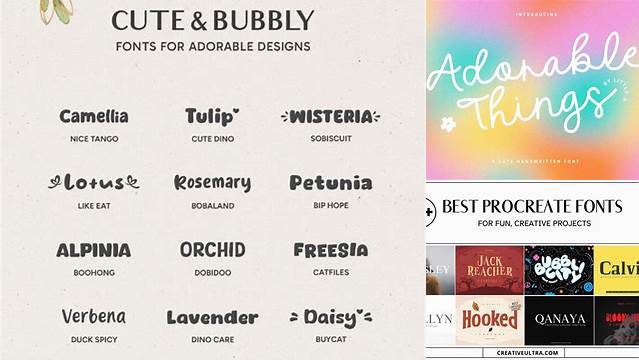
Hey guys! Are you ready to give your Procreate projects a serious dose of cuteness? Finding the perfect font can really make your artwork pop, and the best part is, you don't have to break the bank. Let's dive into a treasure trove of adorable free fonts for Procreate that will add that extra oomph to your designs. Trust me; your creations will thank you!
1. Bubble Letter Fonts for Procreate
Bubble letter fonts are all about fun and playfulness. These fonts feature rounded, soft edges that give a friendly and approachable vibe to your artwork. When you're working on a Procreate project that needs a touch of whimsy, bubble letter fonts are your go-to. Think birthday cards, children's illustrations, or even just adding some personality to your digital notes. They’re super versatile and can be used in a ton of different ways to make your project stand out. The great thing about bubble fonts is how readable they are, even when they’re stylized. This means you can use them for headlines, body text, and even smaller captions without sacrificing clarity. Plus, they come in a variety of weights and styles, so you can find the perfect one to match your artistic vision. When choosing a bubble letter font, consider the overall mood of your project. A thicker, bolder bubble font will make a bigger impact and is great for grabbing attention, while a thinner, more delicate bubble font can add a subtle touch of cuteness. Don't be afraid to experiment with different colors and effects to really make the font shine in your Procreate masterpiece. I personally love using bubble letter fonts for sticker designs; they just add that extra bit of charm that people adore!
2. Script Fonts for Procreate
Script fonts are the epitome of elegance and charm. Their flowing, handwritten style adds a personal touch to any Procreate project, making them perfect for invitations, quotes, and personalized artwork. These fonts mimic real handwriting, so they bring a sense of authenticity and warmth to your designs. The beauty of script fonts lies in their versatility. You can find them in various styles, from elegant calligraphy to more casual and playful scripts. This means you can choose a script font that perfectly matches the tone and style of your artwork. For example, a formal invitation might call for a sophisticated, flowing script, while a fun, quirky project could benefit from a more casual, whimsical script. When using script fonts in Procreate, it's important to consider readability. Some script fonts can be quite intricate, so make sure the text is easy to read, especially when used in smaller sizes. Experiment with different colors and effects to enhance the font's appearance and make it stand out. I often use script fonts to add inspirational quotes to my digital art. The handwritten style gives the quotes a personal and heartfelt touch, making them even more impactful. So, go ahead and explore the world of script fonts and add a touch of elegance to your Procreate creations!
3. Sans-Serif Fonts for Procreate
Sans-serif fonts are the workhorses of the typography world. They are clean, modern, and highly readable, making them an excellent choice for a wide range of Procreate projects. Unlike serif fonts, which have small decorative strokes at the ends of the letters, sans-serif fonts have a clean, straightforward design. This simplicity makes them incredibly versatile and suitable for both headlines and body text. The lack of serifs gives these fonts a contemporary look, making them perfect for digital designs. One of the main advantages of sans-serif fonts is their clarity. They are easy to read on screens, which is essential for Procreate projects that will be viewed on digital devices. This readability makes them ideal for user interfaces, website designs, and digital publications. When choosing a sans-serif font for your Procreate project, consider the overall style and tone you want to convey. A bold sans-serif font can make a strong statement, while a lighter sans-serif font can create a more subtle and refined look. Experiment with different weights and styles to find the perfect font that complements your artwork. I often use sans-serif fonts for labeling elements in my illustrations. Their clean design ensures that the labels are easy to read and don't distract from the overall artwork. So, whether you're creating a website mockup or adding text to your digital painting, sans-serif fonts are a reliable and versatile choice.
4. Serif Fonts for Procreate
Serif fonts are classic and timeless, bringing a touch of tradition and elegance to your Procreate projects. These fonts are characterized by the small decorative strokes, or serifs, at the ends of the letters. These serifs give the font a more formal and refined appearance, making them ideal for projects that require a touch of sophistication. The presence of serifs can also improve readability, especially in printed materials, by guiding the eye along the lines of text. When using serif fonts in Procreate, consider the overall aesthetic you want to achieve. A traditional serif font like Times New Roman or Garamond can add a sense of history and formality to your designs. On the other hand, a more modern serif font can bring a contemporary twist to your artwork. Serif fonts are particularly well-suited for projects that involve a lot of text, such as digital books, articles, or blog posts. The serifs help to create a visual rhythm that makes the text easier to read and more engaging. I often use serif fonts for the body text in my digital magazines. The classic look of serif fonts gives the magazine a professional and polished appearance. Just remember to choose a serif font that complements the overall style of your artwork and enhances the readability of your text.
5. Display Fonts for Procreate
Display fonts are designed to grab attention and make a statement. These fonts are often more stylized and decorative than other font types, making them perfect for headlines, logos, and other prominent design elements in your Procreate projects. Display fonts come in a wide variety of styles, from bold and impactful to elegant and whimsical. This diversity allows you to choose a display font that perfectly matches the tone and style of your artwork. The key to using display fonts effectively is to use them sparingly. Because they are so eye-catching, they can easily overwhelm a design if overused. Instead, focus on using them for key elements that you want to stand out. When choosing a display font for your Procreate project, consider the overall message you want to convey. A bold, geometric display font might be perfect for a modern, edgy design, while a whimsical, hand-drawn display font could be ideal for a fun, playful project. I often use display fonts for creating eye-catching social media graphics. The unique and stylish designs of display fonts help to grab people's attention and make my posts stand out in the crowded social media landscape. So, unleash your creativity and explore the world of display fonts to add a touch of personality to your Procreate creations!
6. Hand-Lettered Fonts for Procreate
Hand-lettered fonts bring an authentic, personal touch to your digital artwork. These fonts mimic the unique imperfections and charm of real handwriting, adding a human element that can make your Procreate projects feel more relatable and heartfelt. Whether you’re creating greeting cards, social media posts, or adding a personal touch to illustrations, hand-lettered fonts are a fantastic choice. The beauty of hand-lettered fonts lies in their diversity. You can find fonts that resemble elegant calligraphy, playful brush lettering, or even quirky doodles. This variety allows you to select a font that perfectly complements the mood and style of your project. Using hand-lettered fonts can transform a sterile, digital design into something warm and inviting. They work particularly well for adding quotes, personal messages, or custom labels to your artwork. When using hand-lettered fonts, pay attention to readability. While the goal is to capture the essence of handwriting, ensure that the text remains clear and easy to understand. Experiment with different sizes, colors, and spacing to optimize the font's impact. I often use hand-lettered fonts to create custom logos for my clients. The unique, hand-crafted look gives their brand a personal touch that resonates with customers. So, embrace the charm of hand-lettered fonts and infuse your Procreate projects with personality!
7. Calligraphy Fonts for Procreate
Calligraphy fonts evoke a sense of timeless elegance and sophistication. These fonts are inspired by the art of beautiful handwriting, with flowing strokes and graceful curves that add a touch of refinement to any Procreate project. Ideal for wedding invitations, formal announcements, or adding a touch of class to your digital art, calligraphy fonts are a versatile asset. The key to using calligraphy fonts effectively is to choose a style that matches the tone of your project. A formal, traditional calligraphy font might be perfect for a wedding invitation, while a more modern, casual calligraphy font could be ideal for a social media graphic. Remember that calligraphy fonts can sometimes be challenging to read, especially in smaller sizes. Ensure that your text is legible and that the font enhances, rather than detracts from, your message. Experiment with colors, gradients, and drop shadows to make the calligraphy stand out. I often use calligraphy fonts to create elegant monograms for my clients. The intricate designs and graceful lines of calligraphy add a touch of luxury to their personal branding. So, explore the world of calligraphy fonts and add a touch of timeless beauty to your Procreate creations!
8. Retro Fonts for Procreate
Retro fonts transport your designs back in time, evoking the styles and trends of past decades. These fonts can add a nostalgic and vintage feel to your Procreate projects, making them perfect for themed artwork, posters, and designs that celebrate a specific era. Whether you're inspired by the bold geometric designs of the 1950s or the groovy typography of the 1970s, retro fonts offer a wide range of options. When using retro fonts, consider the specific era you want to emulate. Research popular fonts and design styles from that time to ensure your project feels authentic. Retro fonts often feature bold, eye-catching designs, so use them sparingly and strategically. Combine them with complementary colors and graphics to create a cohesive vintage aesthetic. I often use retro fonts to design posters for local events. The vintage look and feel of these fonts help to capture the attention of potential attendees and create a sense of excitement. So, dive into the past and bring some retro flair to your Procreate projects!
9. Modern Fonts for Procreate
Modern fonts are all about sleekness, simplicity, and innovation. These fonts often feature clean lines, geometric shapes, and a minimalist aesthetic, making them perfect for contemporary designs. Whether you're creating a website mockup, designing a logo, or adding text to a digital illustration, modern fonts offer a versatile and stylish option. The key to using modern fonts effectively is to maintain a sense of balance and harmony. Pair them with clean, uncluttered layouts and a consistent color palette to create a polished and professional look. Modern fonts work well for both headlines and body text, but be sure to choose a font that is easy to read, especially in smaller sizes. I often use modern fonts to design user interfaces for mobile apps. Their clean and minimalist design helps to create a user-friendly and visually appealing experience. So, embrace the future and add a touch of contemporary style to your Procreate projects!
10. Fun Fonts for Procreate
Fun fonts are designed to bring a smile to your face. These fonts are playful, whimsical, and full of personality, making them perfect for projects that need a touch of lightheartedness. Whether you're creating a children's book, designing a party invitation, or adding text to a cartoon illustration, fun fonts offer a wide range of options. When using fun fonts, don't be afraid to get creative and experiment. Mix and match different fonts, colors, and effects to create a unique and eye-catching design. Just be sure to maintain a sense of balance and avoid overwhelming the viewer. Fun fonts work particularly well for projects that target a younger audience, but they can also be used to add a touch of humor and whimsy to designs for adults. I often use fun fonts to create social media graphics for my blog. Their playful and engaging designs help to attract attention and create a sense of community. So, let your imagination run wild and add some fun to your Procreate projects!
11. Bold Fonts for Procreate
Bold fonts are the powerhouses of typography, designed to grab attention and make a statement. These fonts feature thick, heavy strokes that command attention and convey strength and confidence. Whether you're creating a headline, designing a poster, or emphasizing key words in a text, bold fonts are a versatile and effective choice. The key to using bold fonts effectively is to use them strategically. Overusing bold fonts can create a cluttered and overwhelming design, so focus on using them for key elements that you want to stand out. Pair bold fonts with lighter, more delicate fonts to create a sense of contrast and balance. I often use bold fonts to create call-to-action buttons in my website designs. Their strong and assertive appearance helps to draw the user's eye and encourage them to take action. So, add some punch to your Procreate projects with bold fonts!
12. Thin Fonts for Procreate
Thin fonts offer a delicate and elegant alternative to their bolder counterparts. These fonts feature slender, graceful strokes that convey a sense of sophistication and refinement. Ideal for creating a subtle and understated look, thin fonts can add a touch of class to your Procreate projects. When using thin fonts, pay attention to readability. Thin fonts can sometimes be difficult to read, especially in smaller sizes or against busy backgrounds. To improve readability, increase the font size, use a contrasting color, or add a subtle shadow or outline. Thin fonts work well for both headlines and body text, but they are particularly effective for creating a sense of elegance and sophistication. I often use thin fonts to design logos and branding materials for luxury brands. Their delicate and refined appearance helps to convey a sense of exclusivity and high quality. So, add a touch of elegance to your Procreate projects with thin fonts!
13. Distorted Fonts for Procreate
Distorted fonts are all about breaking the rules and pushing the boundaries of typography. These fonts feature unconventional shapes, irregular lines, and unexpected twists, creating a unique and eye-catching effect. Perfect for adding a touch of edginess and originality to your Procreate projects, distorted fonts can help you stand out from the crowd. When using distorted fonts, be prepared to experiment and think outside the box. Mix and match different fonts, colors, and effects to create a truly unique and personalized design. Just be sure to maintain a sense of balance and avoid overwhelming the viewer. Distorted fonts work particularly well for projects that aim to challenge conventions and express individuality. I often use distorted fonts to create posters and album covers for alternative music artists. Their unconventional and rebellious designs help to capture the spirit of the music. So, unleash your creativity and add some edge to your Procreate projects with distorted fonts!
14. Pixel Fonts for Procreate
Pixel fonts bring a touch of retro gaming nostalgia to your designs. These fonts are designed to mimic the low-resolution graphics of classic video games, with blocky, pixelated characters that evoke a sense of nostalgia and fun. Ideal for adding a touch of retro flair to your Procreate projects, pixel fonts can help you capture the charm of the 8-bit era. The key to using pixel fonts effectively is to embrace their limitations. Pixel fonts are inherently low-resolution, so don't try to make them look too smooth or refined. Instead, focus on celebrating their blocky, pixelated appearance. Pixel fonts work well for both headlines and body text, but they are particularly effective for creating a retro gaming aesthetic. I often use pixel fonts to design logos and graphics for indie game developers. Their retro style helps to capture the spirit of classic video games. So, level up your Procreate projects with pixel fonts!
15. Brush Fonts for Procreate
Brush fonts bring the organic, hand-painted look of brush lettering to your digital designs. These fonts mimic the texture and imperfections of real brushstrokes, adding a touch of authenticity and warmth to your Procreate projects. Ideal for creating a personalized and artistic feel, brush fonts are a versatile choice for a variety of applications. When using brush fonts, pay attention to the details. Look for fonts that capture the subtle nuances of brush lettering, such as varying stroke weights, textured edges, and natural-looking imperfections. Brush fonts work well for headlines, quotes, and other prominent design elements. I often use brush fonts to create custom lettering for greeting cards and invitations. Their hand-painted look adds a personal touch that makes each design feel special. So, add a touch of artistry to your Procreate projects with brush fonts!
16. Graffiti Fonts for Procreate
Graffiti fonts bring the bold, urban energy of street art to your digital canvas. These fonts are inspired by the graffiti styles found on city walls, subways, and other public spaces, with bold, dynamic designs that command attention. Perfect for adding an edgy and rebellious vibe to your Procreate projects, graffiti fonts can help you make a statement. When using graffiti fonts, don't be afraid to get bold and expressive. Experiment with different colors, textures, and effects to create a truly unique and eye-catching design. Graffiti fonts work well for posters, flyers, and other promotional materials. I often use graffiti fonts to create album covers and merchandise designs for hip-hop artists. Their urban style helps to capture the energy and attitude of the music. So, unleash your inner street artist and add some graffiti flair to your Procreate projects!
17. Outline Fonts for Procreate
Outline fonts are a versatile and stylish choice for adding a unique visual element to your Procreate designs. These fonts feature a hollow design, with only the outlines of the letters visible. This creates a clean and modern look that can be used in a variety of applications. Outline fonts are perfect for creating logos, headings, and other design elements that need to stand out. When using outline fonts, consider the background color and how it will interact with the font. A contrasting background will make the outline font more visible, while a similar background can create a subtle and sophisticated effect. I often use outline fonts to create logos for tech companies. Their clean and modern design helps to convey a sense of innovation and sophistication. So, add a touch of contemporary style to your Procreate projects with outline fonts!
18. Shadow Fonts for Procreate
Shadow fonts add depth and dimension to your text, creating a visually appealing 3D effect. These fonts feature a shadow or drop shadow that makes the letters appear to pop off the page. Shadow fonts are perfect for creating eye-catching headlines, logos, and other design elements that need to grab attention. When using shadow fonts, experiment with different shadow colors, angles, and distances to create the desired effect. A subtle shadow can add a touch of depth and realism, while a bold shadow can create a dramatic and impactful look. I often use shadow fonts to create posters and flyers for events. Their 3D effect helps to make the text stand out and attract attention. So, add some depth to your Procreate projects with shadow fonts!
19. Rounded Fonts for Procreate
Rounded fonts bring a friendly and approachable vibe to your designs. These fonts feature soft, rounded edges that give them a warm and inviting feel. Rounded fonts are perfect for creating designs that are welcoming, friendly, and easy to read. When using rounded fonts, consider the overall tone and style of your project. Rounded fonts work well for designs that are playful, lighthearted, and informal. I often use rounded fonts to create logos and branding materials for children's products. Their friendly and approachable design helps to appeal to both kids and parents. So, add a touch of warmth to your Procreate projects with rounded fonts!
20. Geometric Fonts for Procreate
Geometric fonts are all about clean lines, precise shapes, and mathematical perfection. These fonts feature geometric forms that create a modern and structured look. Geometric fonts are perfect for creating designs that are sleek, sophisticated, and visually striking. When using geometric fonts, pay attention to the spacing and alignment of the letters. The precise and structured nature of geometric fonts means that even small errors can be noticeable. I often use geometric fonts to create logos and branding materials for architecture and design firms. Their clean and modern design helps to convey a sense of professionalism and expertise. So, add a touch of precision to your Procreate projects with geometric fonts!
21. Vintage Fonts for Procreate
Vintage fonts transport your designs back to a bygone era, evoking the styles and trends of the past. These fonts capture the charm and character of vintage typography, adding a touch of nostalgia and authenticity to your Procreate projects. Perfect for creating designs that celebrate history, tradition, and timeless style, vintage fonts are a versatile and evocative choice. When using vintage fonts, consider the specific era you want to emulate. Research popular fonts and design styles from that time to ensure your project feels authentic. Vintage fonts work well for logos, posters, and other designs that aim to capture the essence of the past. I often use vintage fonts to create labels and packaging designs for artisanal food products. Their classic and timeless style helps to convey a sense of quality and craftsmanship. So, add a touch of history to your Procreate projects with vintage fonts!
22. Elegant Fonts for Procreate
Elegant fonts are the epitome of sophistication and grace, adding a touch of refinement and class to your Procreate projects. These fonts feature flowing lines, delicate curves, and a timeless aesthetic that conveys a sense of luxury and sophistication. Perfect for creating designs that require a touch of elegance, such as wedding invitations, formal announcements, and high-end branding materials, elegant fonts are a versatile and impactful choice. When using elegant fonts, pay attention to the spacing and kerning of the letters to ensure a polished and professional look. Elegant fonts often have intricate details that can be lost if the spacing is not properly adjusted. I often use elegant fonts to design logos and branding materials for luxury brands and high-end fashion houses. Their refined and sophisticated style helps to convey a sense of exclusivity and prestige. So, add a touch of sophistication to your Procreate projects with elegant fonts!
23. Playful Fonts for Procreate
Playful fonts are designed to inject fun and whimsy into your Procreate designs, making them perfect for projects that need a touch of lightheartedness and joy. These fonts feature quirky shapes, irregular lines, and a cheerful aesthetic that is sure to bring a smile to your face. Ideal for creating designs that target children, promote fun events, or simply add a dose of personality to your artwork, playful fonts are a versatile and engaging choice. When using playful fonts, don't be afraid to get creative and experiment with different colors, sizes, and arrangements. The goal is to create a design that is visually stimulating and full of personality. I often use playful fonts to design social media graphics for my blog, as well as posters to advertise fun events! Their cheerful and engaging designs help to attract attention and create a positive vibe. So, add some fun to your Procreate projects with playful fonts!
24. Unique Fonts for Procreate
Unique fonts are all about standing out from the crowd and expressing your individuality through typography. These fonts feature unconventional shapes, unexpected details, and a distinct personality that sets them apart from more traditional fonts. Perfect for creating designs that need to make a statement, express creativity, or simply add a touch of originality, unique fonts are a bold and impactful choice. When using unique fonts, consider the overall message and tone of your project to ensure that the font complements and enhances your design. The key is to use the fonts sparingly to avoid overwhelming the viewer and ensure that your message remains clear and easy to understand. You're going to want to maintain a strong level of balance! I love to use unique fonts to design album covers and posters for bands, where I want to express creativity and uniqueness through the design! So, unleash your creativity and add some personality to your Procreate projects with unique fonts!
25. Cartoon Fonts for Procreate
Cartoon fonts capture the essence of animated characters and comic books, infusing your designs with a playful and whimsical energy. These fonts often feature exaggerated shapes, rounded edges, and bold lines, mimicking the hand-drawn style of classic cartoons. Ideal for creating designs that target children, promote animated content, or simply add a fun and lighthearted touch to your artwork, cartoon fonts are a versatile and engaging choice. When using cartoon fonts, consider the overall tone and style of your project to ensure that the font complements and enhances your design. A great way to do this is by combining cartoon fonts with bright colors and fun illustrations to create a visually stimulating and engaging design. My friend and I like to use cartoon fonts to design social media graphics for my children's channel! So, add some animated flair to your Procreate projects with cartoon fonts!
26. Stylish Fonts for Procreate
Stylish fonts are designed to elevate your Procreate designs with a touch of elegance, sophistication, and visual appeal. These fonts often feature refined details, balanced proportions, and a timeless aesthetic that is sure to impress. Perfect for creating designs that require a polished and professional look, such as branding materials, invitations, and website graphics, stylish fonts are a versatile and impactful choice. When using stylish fonts, pay attention to the overall composition of your design, ensuring that the font complements and enhances your message. Stylish fonts work particularly well when paired with minimalist layouts, high-quality imagery, and a cohesive color palette. This helps create a sophisticated and visually appealing result. I like to use stylish fonts to design logos and websites for my clients. The refined and elegant design helps to convey professionalism and high quality. So, add a touch of elegance to your Procreate projects with stylish fonts!
27. Fancy Fonts for Procreate
Fancy fonts are the go-to choice for adding a touch of extravagance and opulence to your designs. These fonts often feature ornate details, elaborate flourishes, and a luxurious aesthetic that commands attention. Perfect for creating designs that need to make a statement, such as wedding invitations, high-end branding materials, and promotional graphics for luxury products, fancy fonts are a bold and impactful choice. When using fancy fonts, consider the overall tone and message of your project to ensure that the font complements and enhances your design. The font will often play a crucial role in tying together the message. Fancy fonts work best when paired with elegant layouts, high-quality imagery, and a sophisticated color palette. I enjoy the result of fancy fonts to design logos and websites for luxury brands and high-end events. Their refined and ornate design helps to convey a sense of exclusivity and prestige. So, add a touch of luxury to your Procreate projects with fancy fonts!
28. Minimalist Fonts for Procreate
Minimalist fonts embrace simplicity and clarity, offering a clean and modern aesthetic for your Procreate designs. These fonts often feature clean lines, geometric shapes, and a lack of unnecessary ornamentation, making them perfect for projects that require a sense of order, sophistication, and understated elegance. Ideal for creating designs that emphasize content and functionality, such as user interfaces, website layouts, and editorial designs, minimalist fonts are a versatile and impactful choice. When using minimalist fonts, pay attention to the spacing and alignment of your text to ensure a clean and legible result. In turn, the use of minimalist fonts is enhanced to achieve readability while upholding the design! Minimalist fonts work best when paired with simple layouts, negative space, and a limited color palette to create a sense of balance and harmony. So, embrace simplicity and add a touch of modern elegance to your Procreate projects with minimalist fonts!
29. Creative Fonts for Procreate
Creative fonts are designed to spark imagination and inspire innovation in your Procreate designs. These fonts often feature unconventional shapes, unexpected details, and a unique personality that sets them apart from more traditional fonts. Perfect for creating designs that need to make a statement, express creativity, or simply add a touch of originality, creative fonts are a bold and impactful choice. When using creative fonts, consider the overall message and tone of your project to ensure that the font complements and enhances your design. For this reason, you should feel comfortable spending extra time finding the perfect match. Creative fonts work particularly well when paired with bold colors, dynamic layouts, and unexpected visual elements. Let the creative fonts be the focal point! So, unleash your creativity and add some personality to your Procreate projects with creative fonts!
30. Decorative Fonts for Procreate
Decorative fonts are perfect for adding a touch of flair and personality to your Procreate designs. These fonts often feature ornamental details, unique shapes, and eye-catching designs that can transform your text into a work of art. Ideal for creating headlines, logos, and other design elements that need to stand out, decorative fonts are a versatile and impactful choice. When using decorative fonts, consider the overall aesthetic of your project and choose a font that complements the other design elements. Too much decoration can overwhelm the viewer, so use decorative fonts sparingly and strategically. Decorative fonts work well for posters, invitations, and other designs where you want to make a statement. I love using decorative fonts for seasonal greeting cards and promotional materials. So, add some flair to your Procreate projects with decorative fonts!